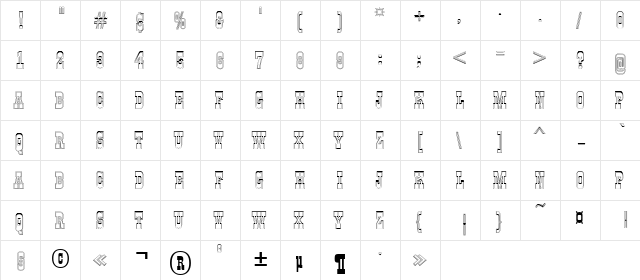
a_GildiaTitulDblOtl Regular
Design Context for a_GildiaTitulDblOtl Typeface
a_GildiaTitulDblOtl is a composed and adaptable typeface that performs quietly and consistently across a wide range of design contexts.